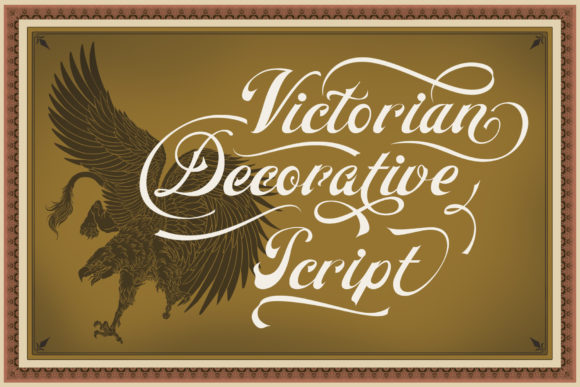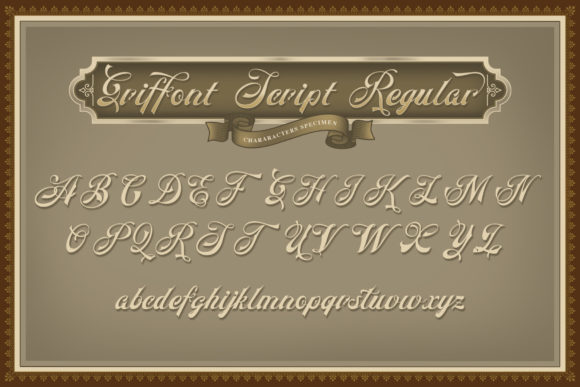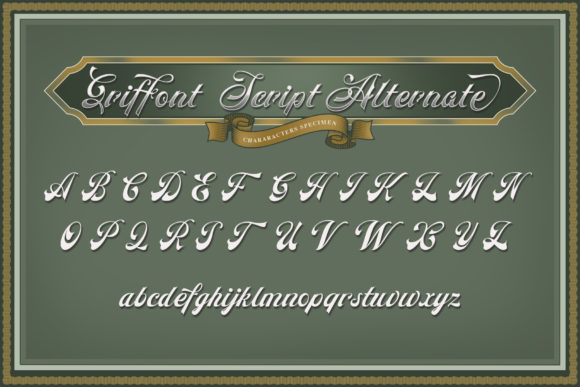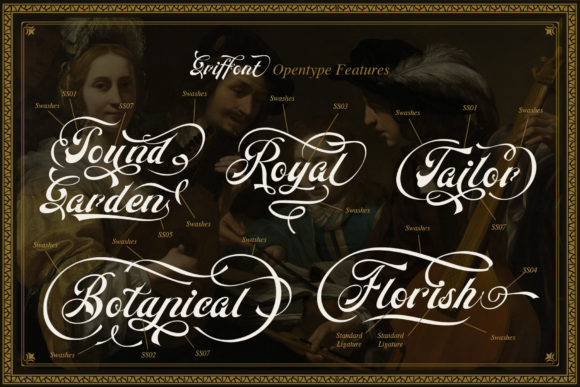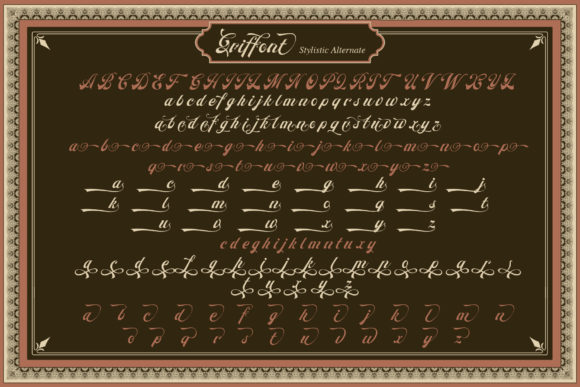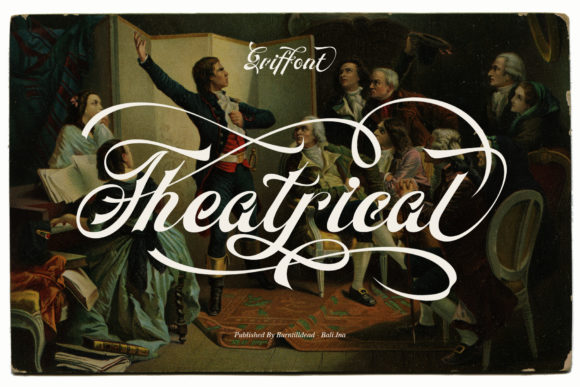
Introducing Griffont: The Victorian Styled, Handwritten Font for Creative Masterpieces
Are you a designer, crafty DIY enthusiast, or simply someone who loves to add a touch of elegance to their creative projects? Look no further! Griffont, a beautiful Victorian styled, handwritten font, is here to transform your ideas into stunning works of art. In this article, we’ll dive into the world of Griffont, exploring its features, uses, and the creative possibilities it offers.
What is Griffont?
Griffont is a meticulously crafted, handwritten font that embodies the essence of Victorian elegance. Its intricate and ornate lettering is reminiscent of the grandeur and sophistication of the Victorian era. This font is perfect for anyone looking to add a touch of luxury and refinement to their creative projects.
Features of Griffont
- Victorian Styled: Griffont’s design is inspired by the ornate and intricate lettering of the Victorian era, making it perfect for projects that require a touch of elegance and sophistication.
- Handwritten: The font’s handwritten nature gives it a personal and unique touch, making it ideal for creative projects that require a human touch.
- Versatile: Griffont is suitable for a wide range of creative projects, from Instagram graphics and social media posts to DIY projects, calligraphy, and more.
Uses of Griffont
Griffont’s versatility makes it suitable for a wide range of creative projects. Here are a few ideas to get you started:
- Instagram Graphics: Add a touch of elegance to your Instagram feed with Griffont. Use it to create stunning quotes, captions, and graphics that will make your feed stand out.
- DIY Projects: Griffont is perfect for DIY projects, such as crafting, scrapbooking, and journaling. Use it to add a personal touch to your projects and make them truly unique.
- Calligraphy: Griffont’s handwritten nature makes it an excellent choice for calligraphy projects. Use it to create beautiful lettering pieces that will add a touch of elegance to any room.
- Branding: Griffont can also be used for branding purposes, such as creating logos, business cards, and letterheads.
Tips for Using Griffont
Here are a few tips to help you get the most out of Griffont:
- Experiment with Sizes: Griffont looks great in various sizes, from small and delicate to large and bold. Experiment with different sizes to find the one that works best for your project.
- Play with Colors: Griffont’s elegant design looks great in a variety of colors. Experiment with different colors to find the one that complements your project best.
- Mix and Match: Don’t be afraid to mix and match Griffont with other fonts to create a unique and interesting look.
Griffont is a beautiful Victorian styled, handwritten font that is perfect for designers, crafty DIY enthusiasts, and anyone looking to add a touch of elegance to their creative projects. Its versatility, ease of use, and stunning design make it an excellent choice for a wide range of creative projects. Whether you’re looking for fonts for Instagram or calligraphy scripts for DIY projects, Griffont is sure to turn your creative ideas into true pieces of art!